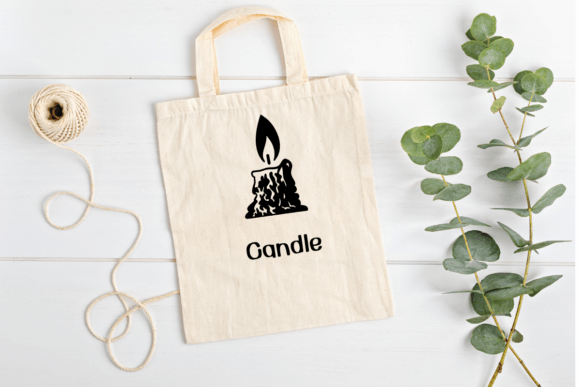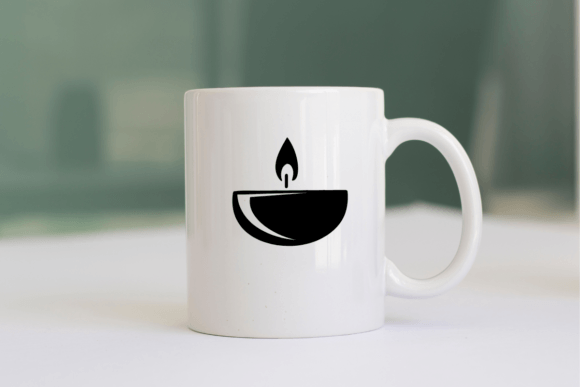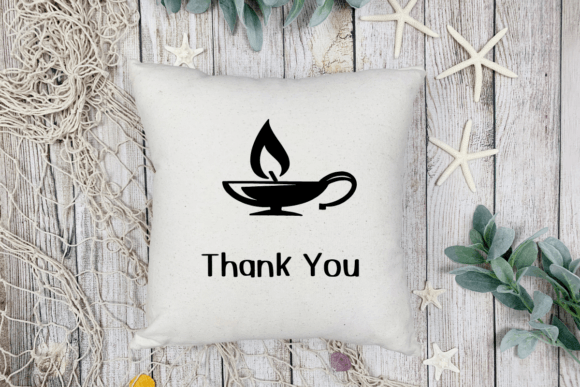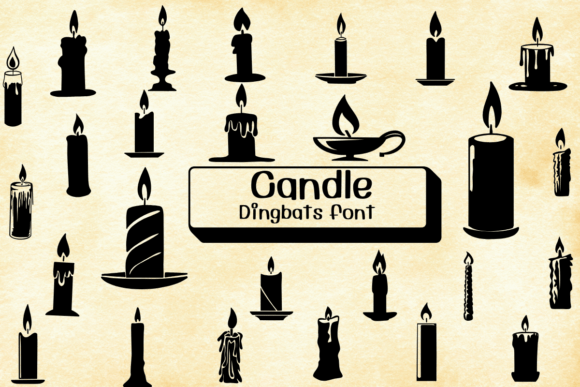
The Warm Glow of Candle Font: A Designer’s New Best Friend
I still remember the project that led me to discover the charming Candle font. I was working on a cozy winter-themed branding campaign for a client, and I was struggling to find the perfect font to capture the warm and inviting atmosphere I wanted to convey. That’s when I stumbled upon Candle, a dingbat font featuring adorable designs of candles with glowing flames. It was love at first sight! ✨
An Honest Review of Candle Font
What I Love About Candle Font
- ✨ Unique and charming designs: Each character in the font represents a different candle style, adding a touch of whimsy to any project.
- 🌟 Versatile: Perfect for a wide range of projects, from festive holiday designs to cozy branding and packaging.
While Candle font is a delightful addition to any design project, there are a few things to keep in mind: 🤔
- ⚠️ Limited character set: As a dingbat font, Candle has a limited character set, which may not be suitable for projects requiring a wide range of text.
- ⚠️ May not be suitable for body text: Due to its decorative nature, Candle font is best used for headlines, titles, or accents rather than body text.
The Story Behind Candle Font
Candle font was designed with the intention of capturing the warmth and coziness of a crackling flame. The designer, inspired by the soft glow of candles, aimed to create a font that would evoke feelings of comfort and relaxation. The result is a charming, dingbat font that adds a touch of whimsy to any project.
| Font Name | Candle Font |
| Author | Ketsarin |
Q: What type of projects is Candle font best suited for?
A: Candle font is perfect for festive holiday designs, cozy branding and packaging, and any project that requires a warm, inviting atmosphere.
Q: Can I use Candle font for body text?
A: While Candle font is beautiful, it’s best used for headlines, titles, or accents rather than body text due to its decorative nature.